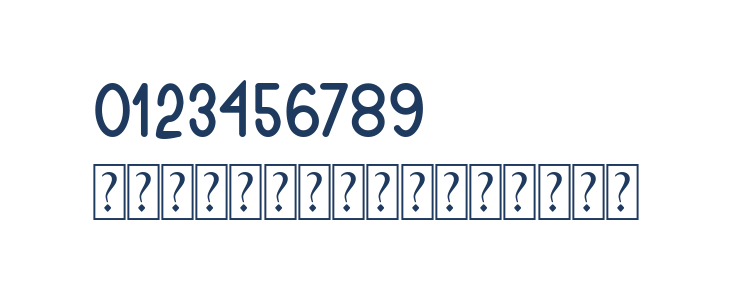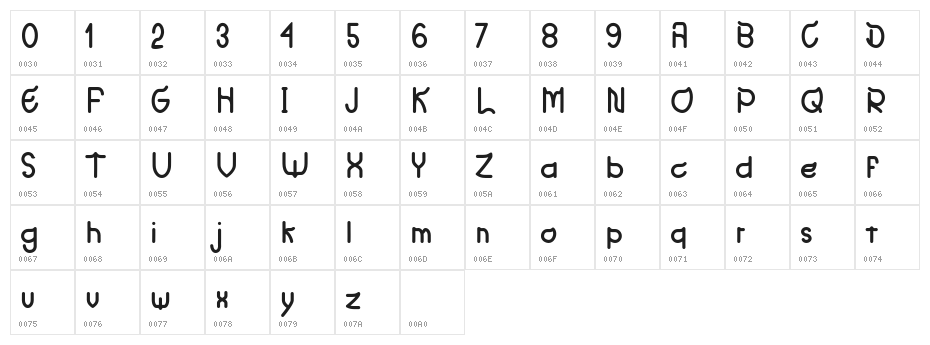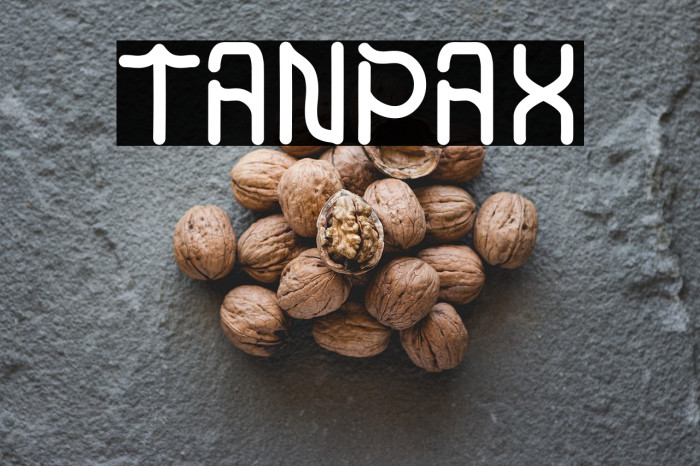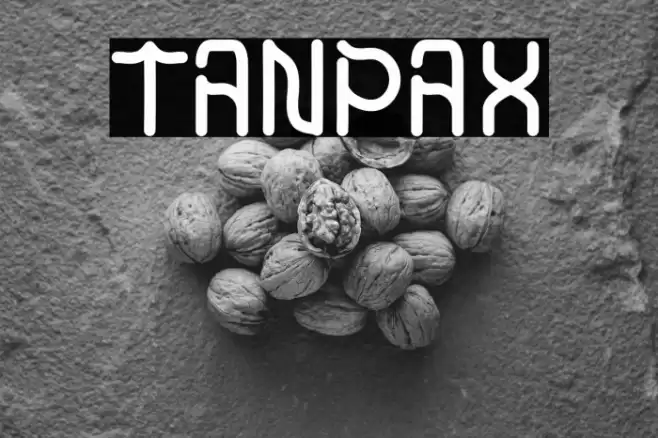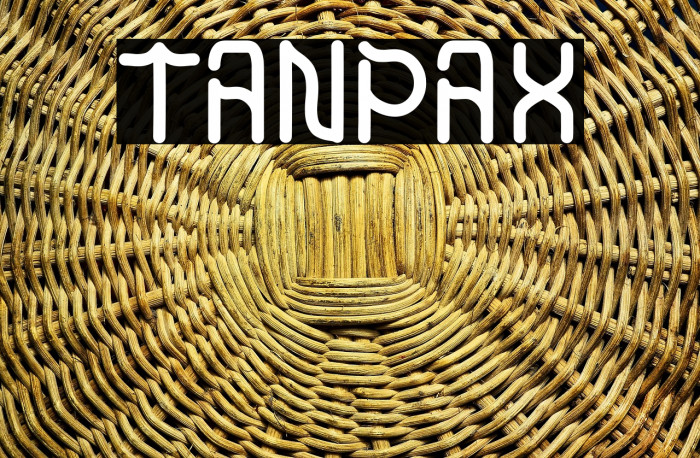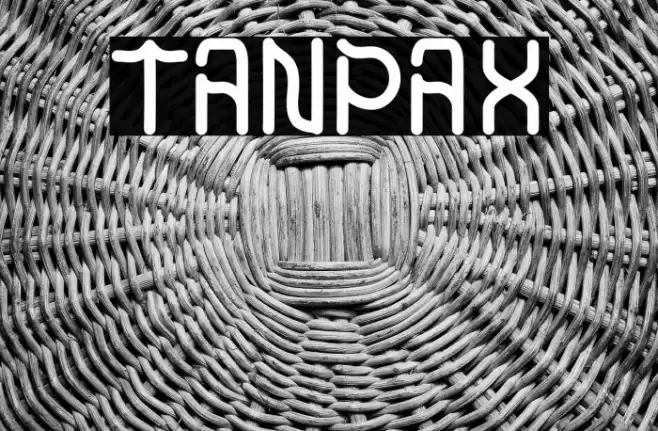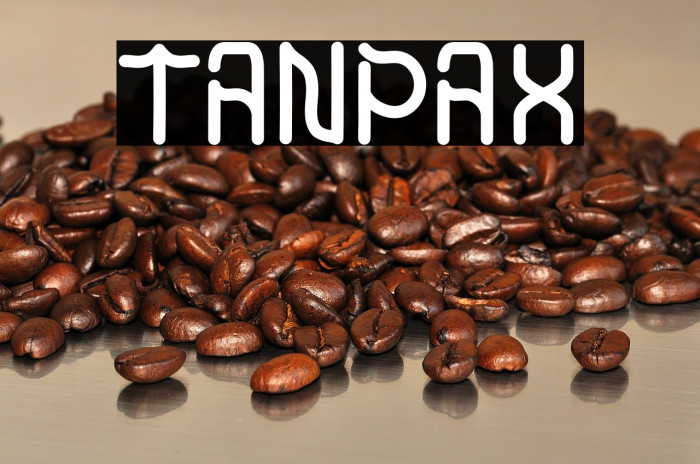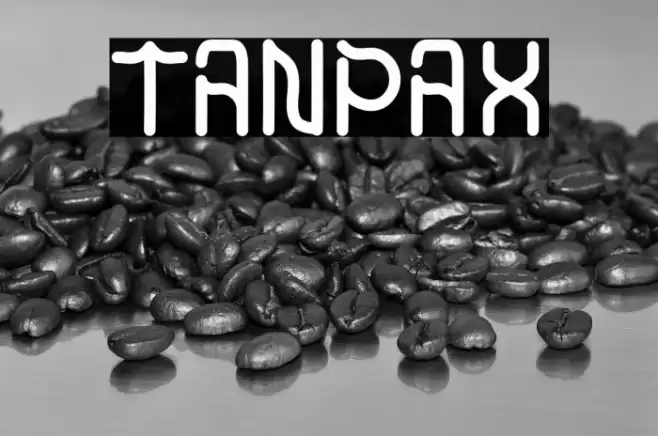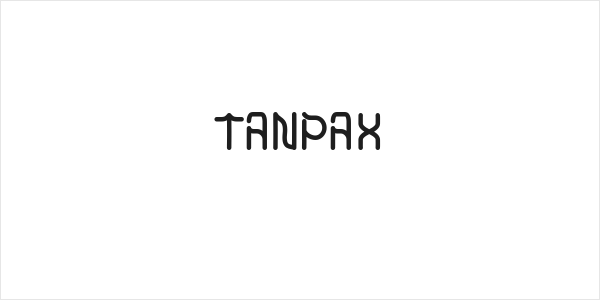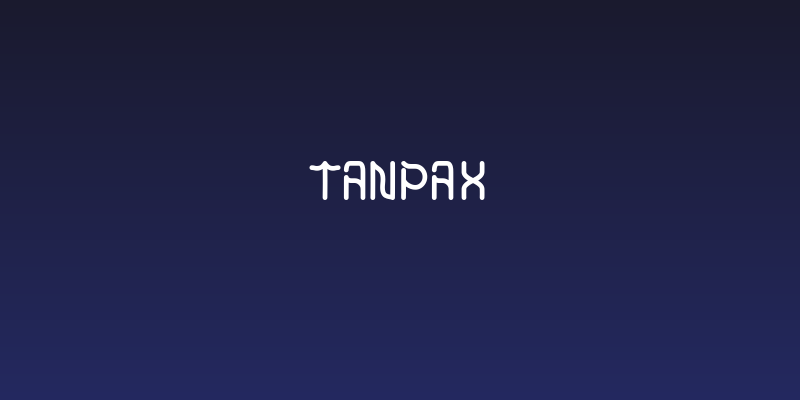
TANPAX Font
TANPAX Description
This font features a playful and rounded style with a unique, slightly whimsical character design. The letters have a consistent stroke width, giving it a uniform appearance. The rounded edges and smooth curves create a friendly and approachable look, making it suitable for informal and creative projects. The numerals and special characters maintain the same playful aesthetic, ensuring consistency across all text elements. This font is ideal for projects that require a touch of fun and creativity, such as children's books, playful branding, or casual invitations.
| Proposed Projects | Children's books, playful branding, casual invitations, creative posters. |